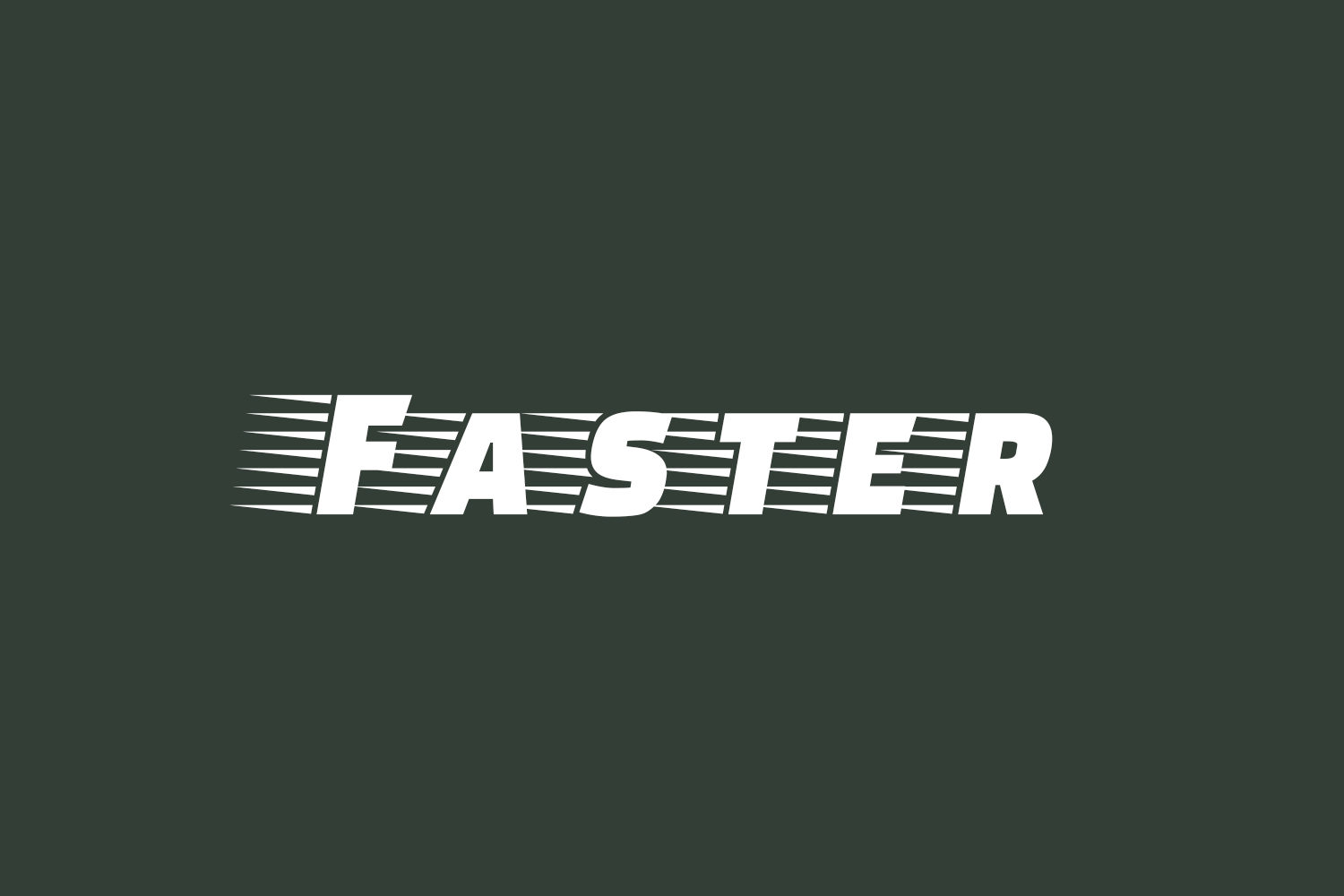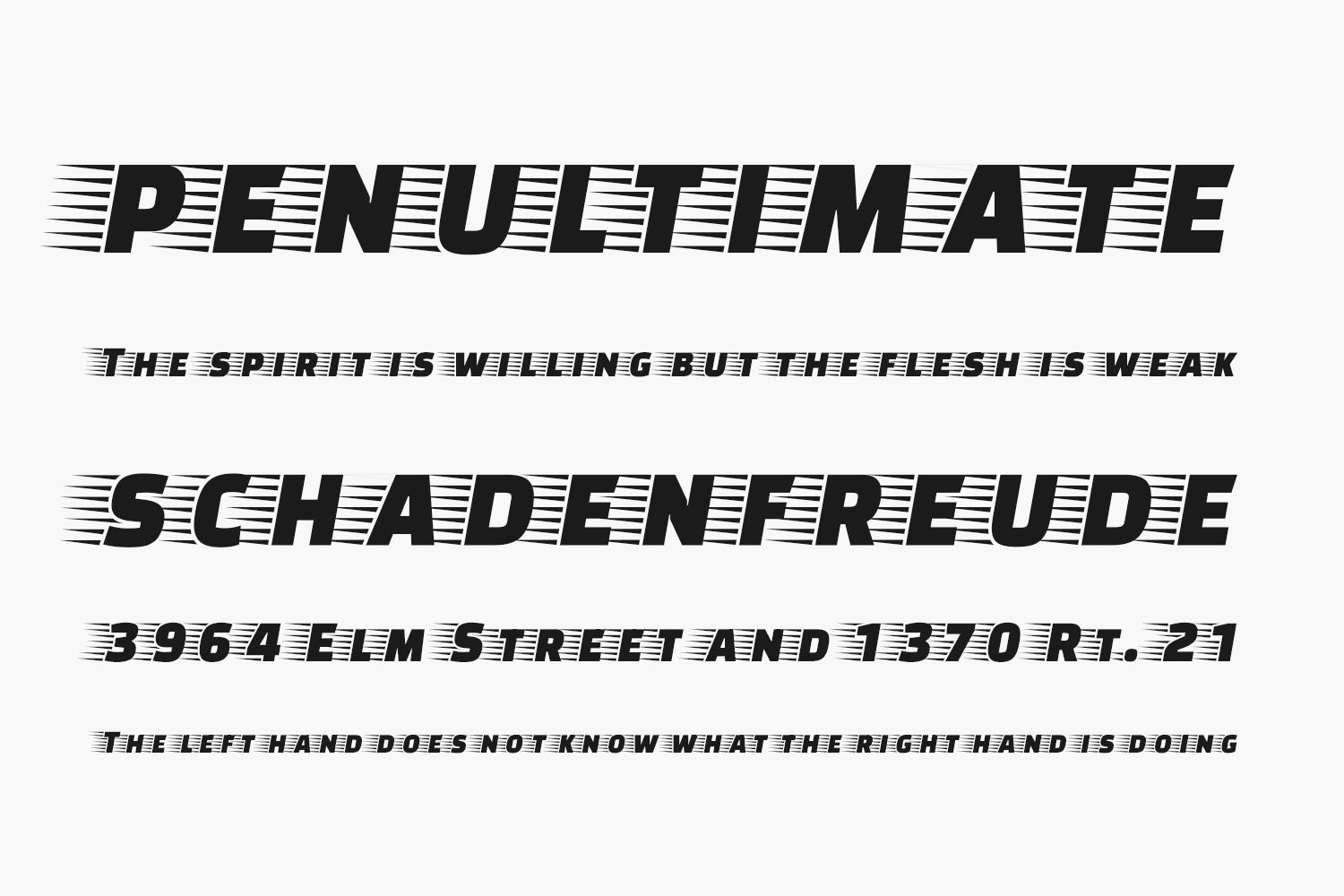
Faster Free Font was developed from a sans serif italics. In order to create an impression of velocity, the horizontal and gradual lines generate the idea of the image of the wind. Ideal for writing headlines where efficiency and speed are priorities.
Designed by Eduardo Tunni